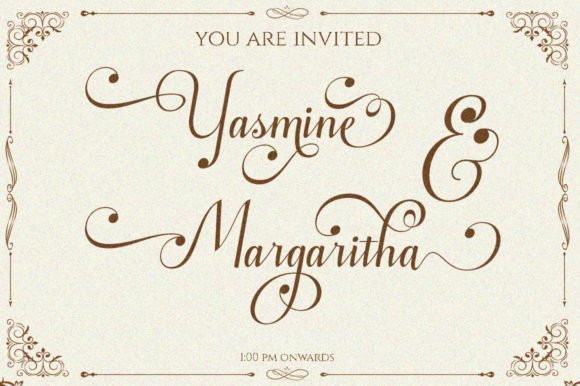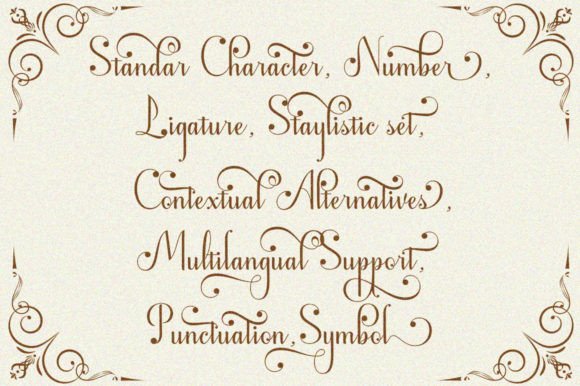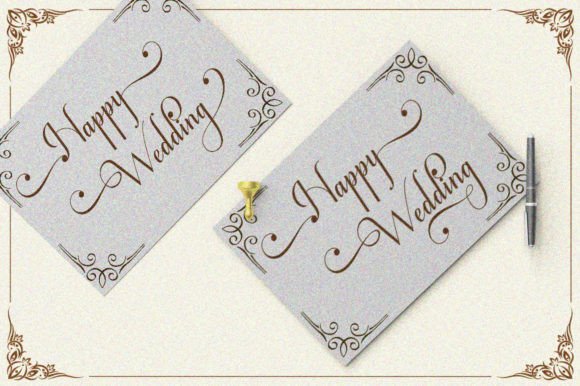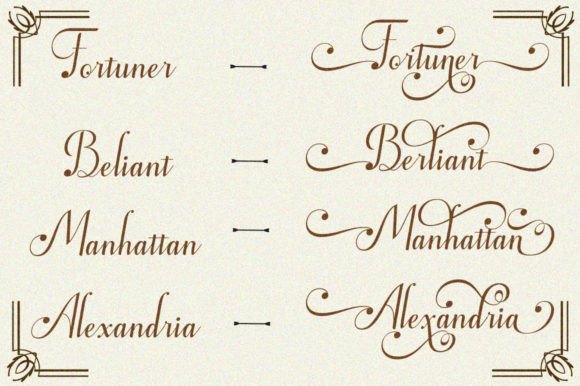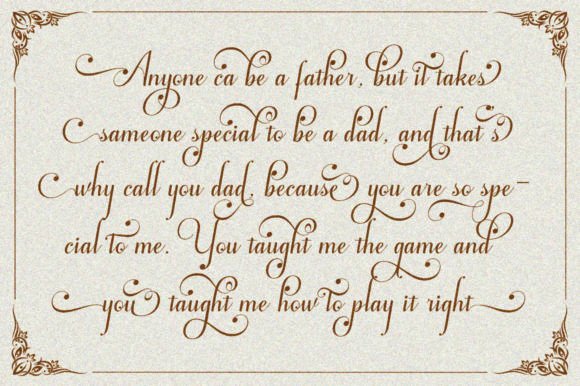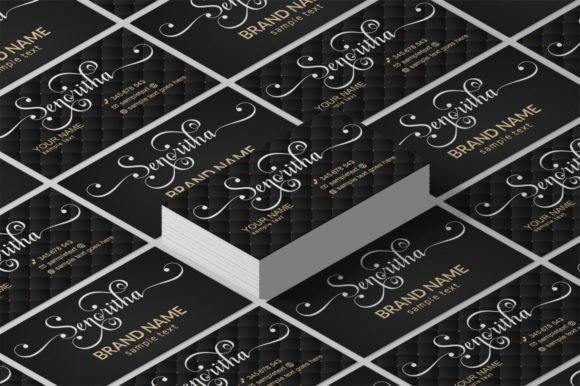
Introduction to Scarlotta Font
As designers, we’ve all been there – staring at a blank page, trying to find the perfect font to bring our creative project to life. The moment of discovery, when the right font clicks into place, is like a breath of fresh air. And for those who crave elegance and sophistication, the Scarlotta Font is sure to be a game-changer. With its copper calligraphy mixed in hand lettering style, this beautiful font is designed to convey a sense of refined luxury.
Whether you’re working on a high-end fashion campaign or a romantic novel, the Scarlotta Font is the perfect design resource to elevate your project. Its subtle, clean, and feminine style is both easy to read and visually stunning, making it a valuable asset for any designer. Plus, with its beautiful alternate characters and transparent background, you can easily customize it to fit your creative vision.
What sets the Scarlotta Font apart from other high-quality fonts is its versatility. From invitations and labels to menus and logos, this elegant script font is perfect for a wide range of formal items. And with its free download available, you can get started on your next project right away.
Key Features of Scarlotta Font
- High-quality, elegant design ideal for creative projects and design resources.
Honest Review: Scarlotta Font
I recently had the chance to work with the Scarlotta Font, and I must say it’s been a great addition to my design resource library. One of the things that stood out to me was its high quality and versatility.
Here are some of the things that work well: ✨
- Beautiful, elegant script style that’s perfect for creative projects.
- Works well on both light and dark backgrounds, making it easy to incorporate into any design.
However, there are a few limitations to be aware of: ⚠️
- The font doesn’t have a transparent background option, which may limit its use in certain situations.
- It’s not as extensive as some other font families, with a limited range of weights and styles.
Overall, I’m really impressed with the Scarlotta Font, and I think it’s a great addition to any designer’s library. With a little creativity, it’s easy to work around its limitations and get great results.
Tips for Getting the Most Out of Scarlotta Font
Use the Scarlotta Font in combination with other design resources to create a unique look. Experiment with different font sizes and styles to add depth and interest to your design. Also, consider using the font in a creative project that requires a high-quality, transparent background.
Common Use Cases for Scarlotta Font
The Scarlotta Font is suitable for a wide range of creative projects, including graphic design, digital art, and typography. It can also be used in business presentations, social media graphics, and marketing materials.